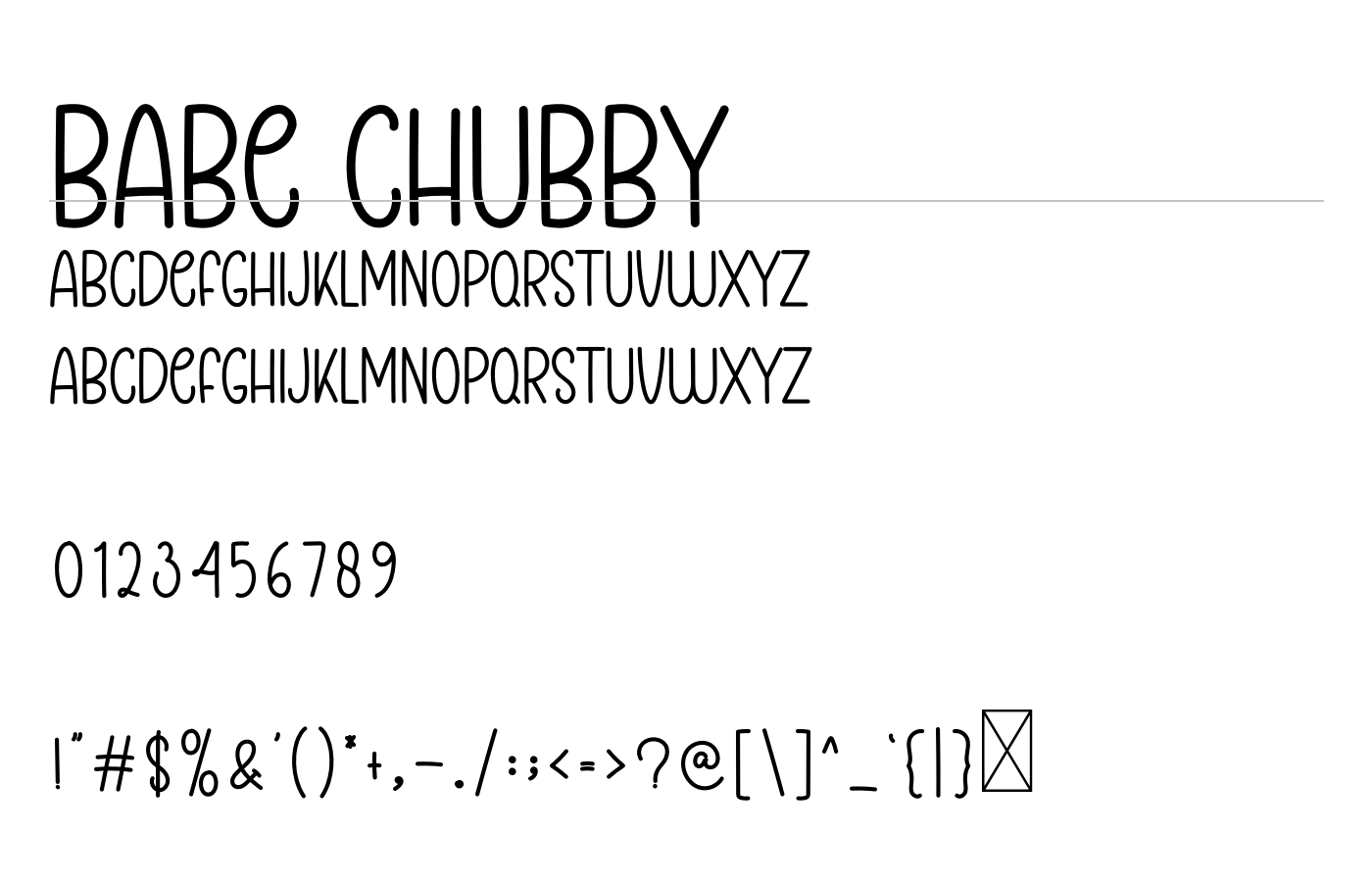
Babe Chubby is a playful and informal handwritten sans serif font featuring tall, narrow letterforms with a whimsical charm. Its light weight and consistent stroke width give it a friendly, approachable feel, making it ideal for casual branding, invitations, and children’s content where a lighthearted and personal touch is desired. The font’s tall x-height and unique letter shapes create an engaging and easy-to-read style that works well in headlines and short texts.
Babe Chubby Font
About Babe Chubby Font